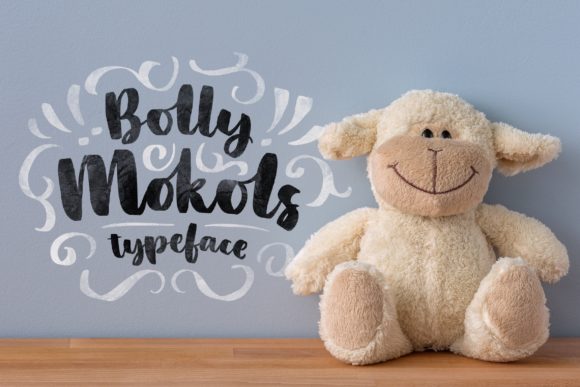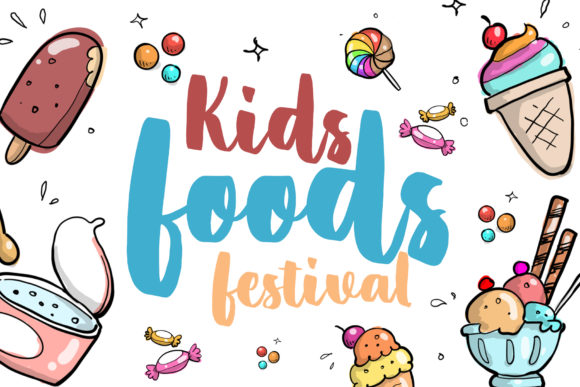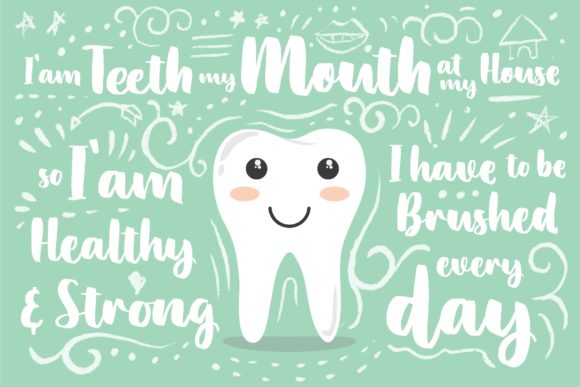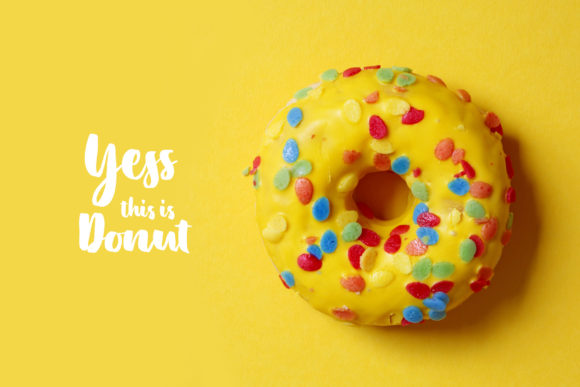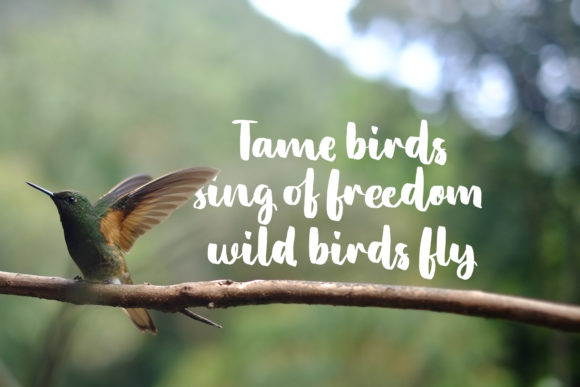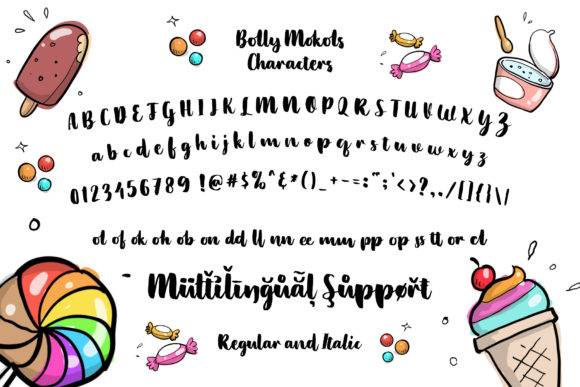
Bolly Mokols Font
About Bolly Mokols Font
Bolly Mokols is a playful and cute script font that’s great for turning any design project into a unique piece of art!